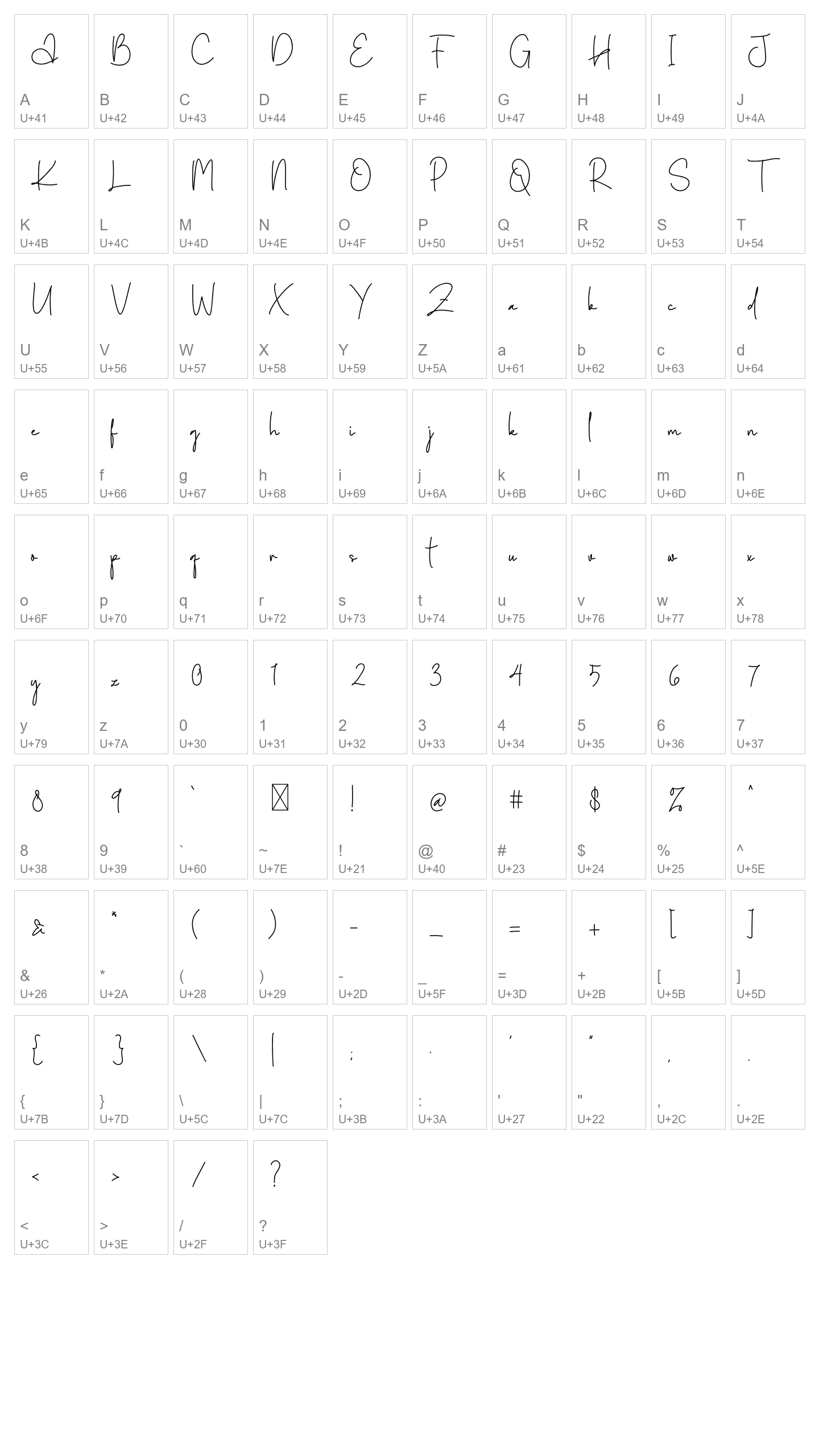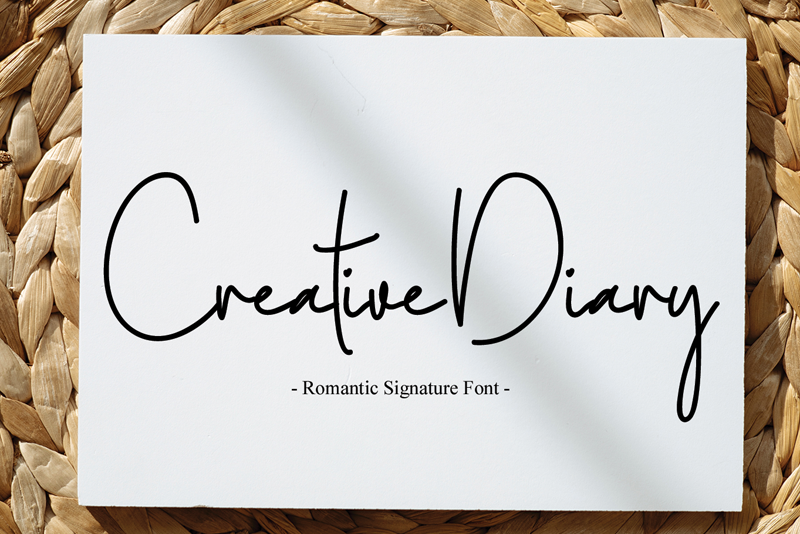
Creative Diary
Creative Diary is an exquisite handwritten font, masterfully designed to become a true favorite. It maintains its classy calligraphic influences while feeling contemporary and fresh.